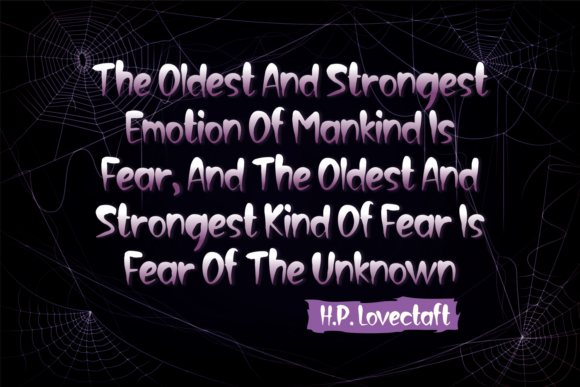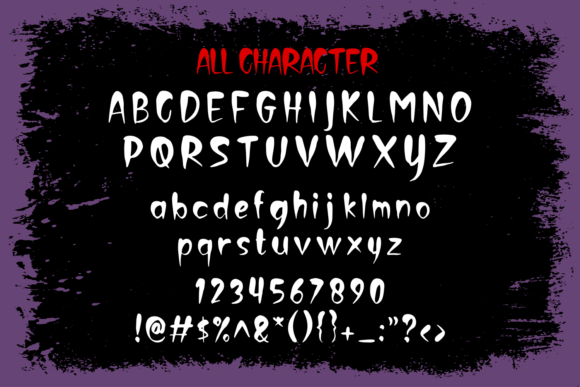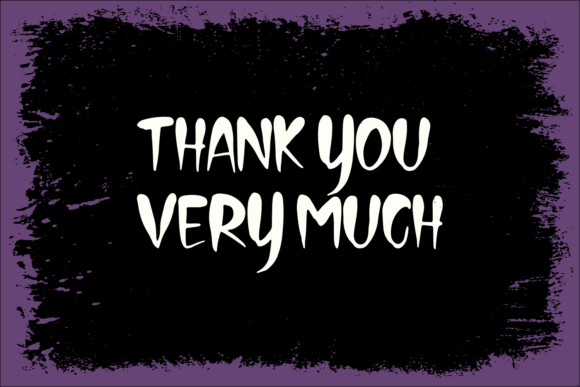
Introduction to Creepy Face Font
As a designer, there’s nothing quite like that moment when a project comes together and you feel like you’ve nailed the aesthetic you were going for. For me, it was a Halloween-themed poster I created for a friend’s party a few years ago. I wanted something that would capture the spooky spirit of the season, and after some experimentation, I stumbled upon the perfect font – the Creepy Face Font.
With its cool, spooky vibe, this display font is a design resource that’s sure to add a touch of Halloween magic to your creative project. Whether you’re planning a high-quality design for October or just need a fun font for a casual event, the Creepy Face Font is a great choice. And the best part? It’s available for free download, making it an accessible design tool for designers of all levels.
Key Features of Creepy Face Font
- Unique and Distinctive Design: The Creepy Face Font features a creepy, yet charming design that’s perfect for creative projects.
- High-Quality Design Resource: This font is designed with precision and care, ensuring a high-quality output for your design projects.
- Medium Font Size: The font size ranges from 12 to 48 points, making it suitable for various design applications, from small titles to large headings.
- High Resolution: Designed at 300 DPI, the font is ideal for printing and digital applications where high-resolution graphics are required.
Honest Review: Creepy Face Font
As a designer, I was excited to try out the Creepy Face Font for my latest creative project. I downloaded it for free, and was immediately impressed with the high quality of the font. The detailed design and unique style made it perfect for adding a touch of eeriness to my project.
Here are some of the things that worked well for me:
- ✨ High-quality design: The font is well-crafted and looks great at various sizes and resolutions.
- ✨ Unique style: The Creepy Face Font has a distinctive and recognizable style that’s perfect for adding a touch of personality to your project.
- ✨ Transparent background: The font has a transparent background, making it easy to place it over any image or background.
- ⚠️ Limited character set: The font only includes a limited set of characters, which may not be suitable for longer texts or paragraphs.
- ⚠️ Not suitable for body text: Due to its unique style and limited character set, I wouldn’t recommend using the Creepy Face Font for body text or large blocks of text.
Overall, I was impressed with the Creepy Face Font and would definitely use it again for future creative projects. Its unique style and high quality make it a valuable design resource, and its transparent background makes it easy to use in a variety of contexts.
Tips for Getting the Most Out of Creepy Face Font
To get the most out of the Creepy Face Font, try using it in combination with other design elements, such as bold colors and creepy textures. You can also experiment with different font sizes and styles to create a unique and unsettling effect.
Creepy Face Font is perfect for creative projects that require a spooky or eerie atmosphere, such as:
- Halloween decorations and party invitations
- Horror movie posters and trailers
- Spooky-themed social media graphics and ads